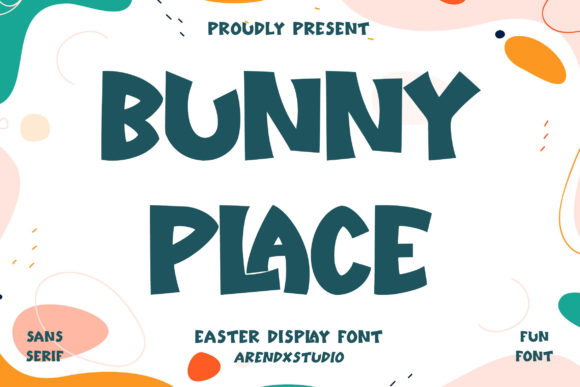
Are you ready to infuse your designs with a burst of playful charm and whimsical appeal? Look no further than Bunny Place Font, the ultimate display font that will transform your creative projects into enchanting masterpieces.
Crafted with meticulous attention to detail by the talented Arendxstudio, Bunny Place is a captivating font that exudes joy and wonder. Its bold, cartoon-like characters dance across the page, evoking a sense of nostalgia and childhood innocence.
Effortlessly access a world of creative possibilities with Bunny Place's PUA encoding, allowing you to unleash your imagination and incorporate a variety of glyphs and swashes into your designs.
Transport your audience to a world of enchantment with Bunny Place, the perfect font for children-themed designs. Its playful nature pairs seamlessly with vibrant colors, creating an atmosphere that sparks creativity and ignites the imagination.
Design Christmas bags that overflow with holiday cheer, greeting cards that sparkle with festive spirit, and posters that capture the magic of the season. Bunny Place's whimsical personality adds a touch of whimsy to any project, making it the ideal choice for creating designs that leave a lasting impression.
Bring your creative vision to life with Bunny Place, the font that captivates, inspires, and delights. Embrace the power of storytelling and create designs that resonate with your audience, leaving them spellbound and eager for more.